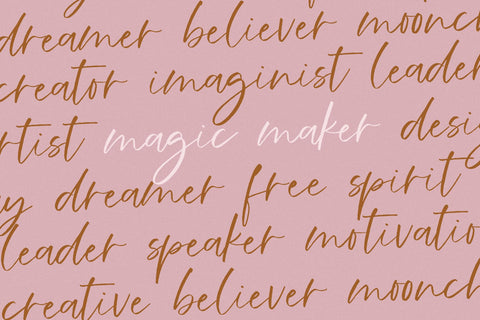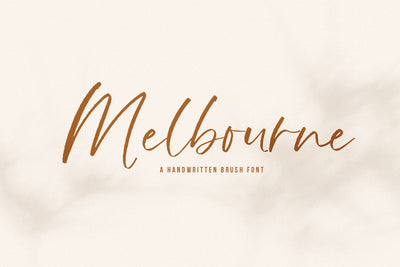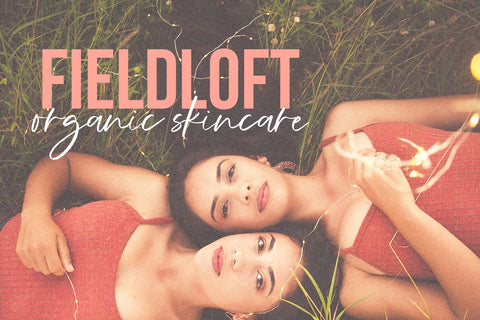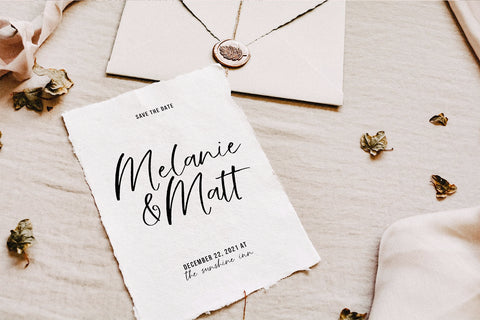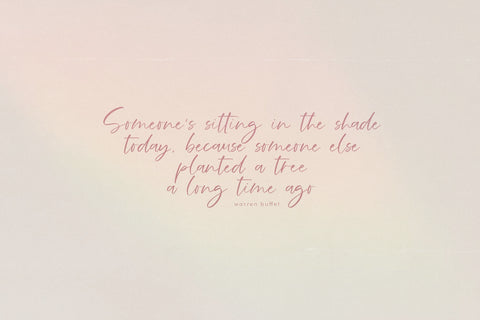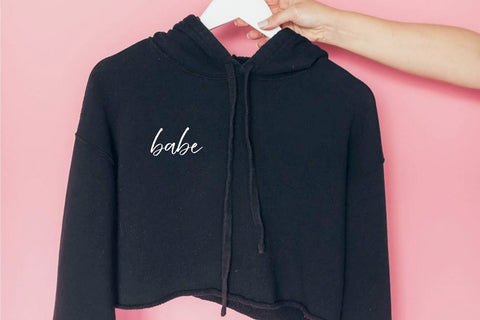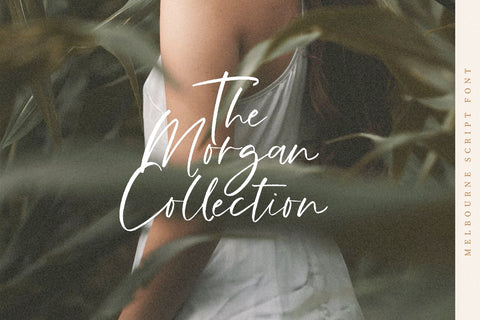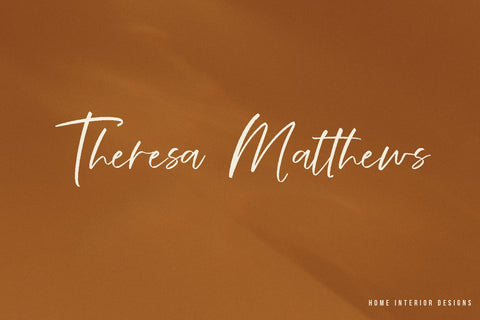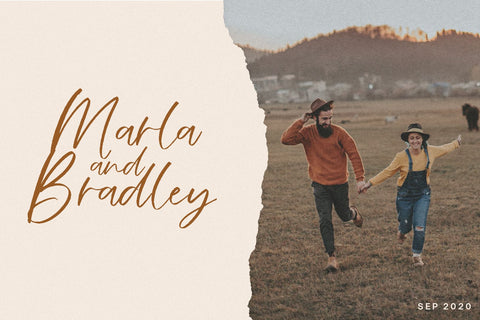
Melbourne - Handwritten Script Font
Melbourne is a modern handwritten font with a thin brush texture.
This font has a slight noisy texture - making it perfect for branding and digital designs.